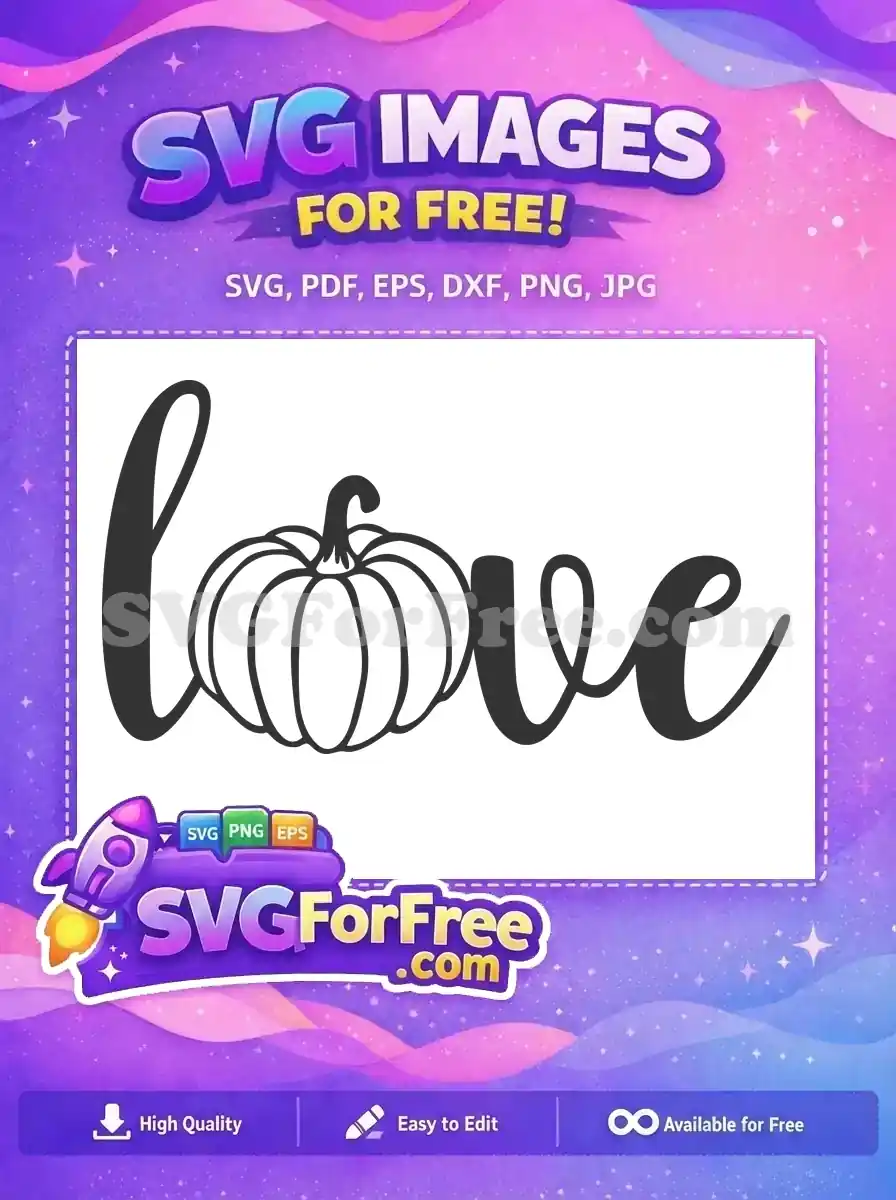
Free Script Font Love Free Pumpkin Outline Fall Thanksgiving Quotes Free SVG – Instant Download
Word ‘love’ with a line-art pumpkin replacing the letter ‘o’, free to download.
Free Script Font Love Free Pumpkin Outline Fall Thanksgiving Quotes Free SVG